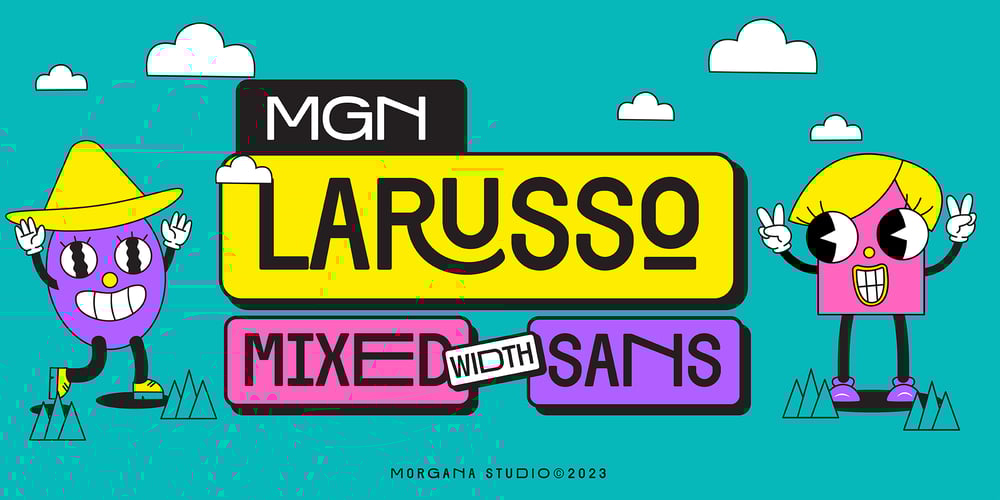
MGN Larusso Font Family was designed by Muhamad Masyhuri, Fattah Setiawan and published by Morgana Studio. MGN Larusso contains 1 styles and family package options. MGN Larusso is a mixed-width sans font produced by Morgana Studio. It features a unique design that combines both regular and condensed letterforms to create a visually interesting and versatile typeface. With its modern and distinctive appearance, MGN Larusso is a great choice for a wide range of design projects, adding a touch of sophistication and style to your work.